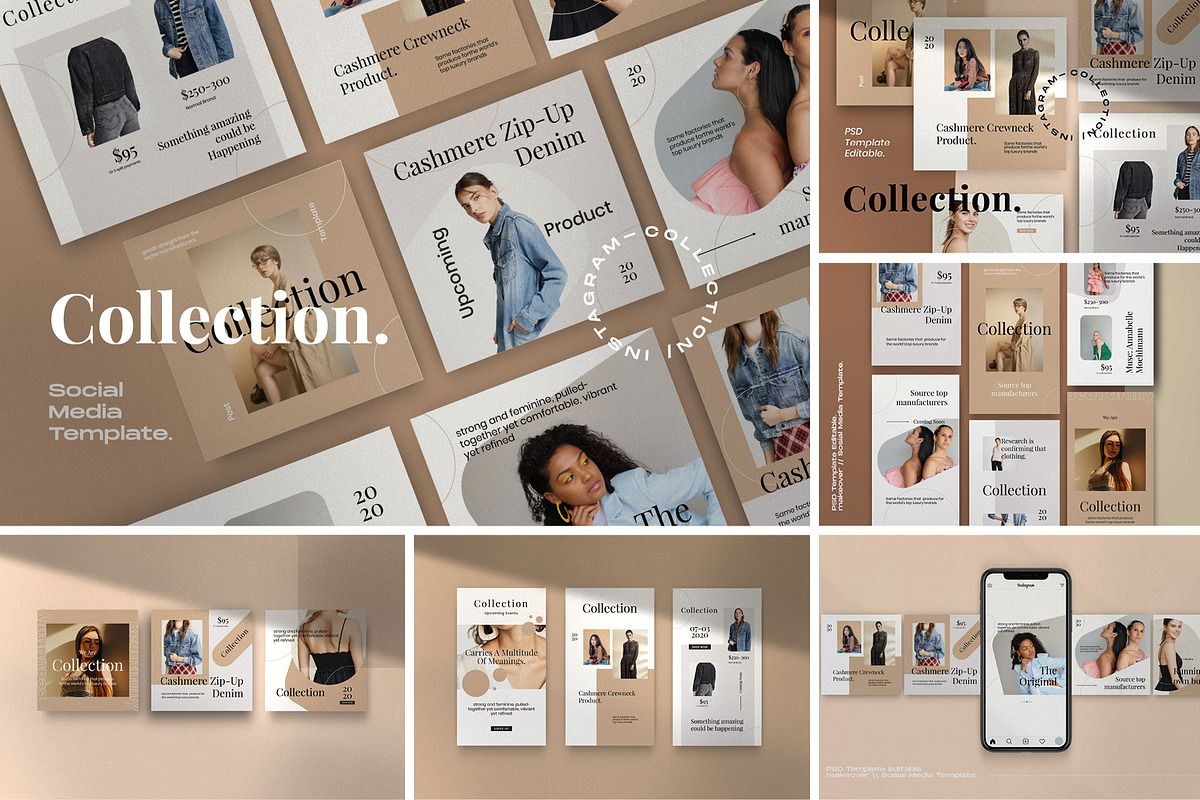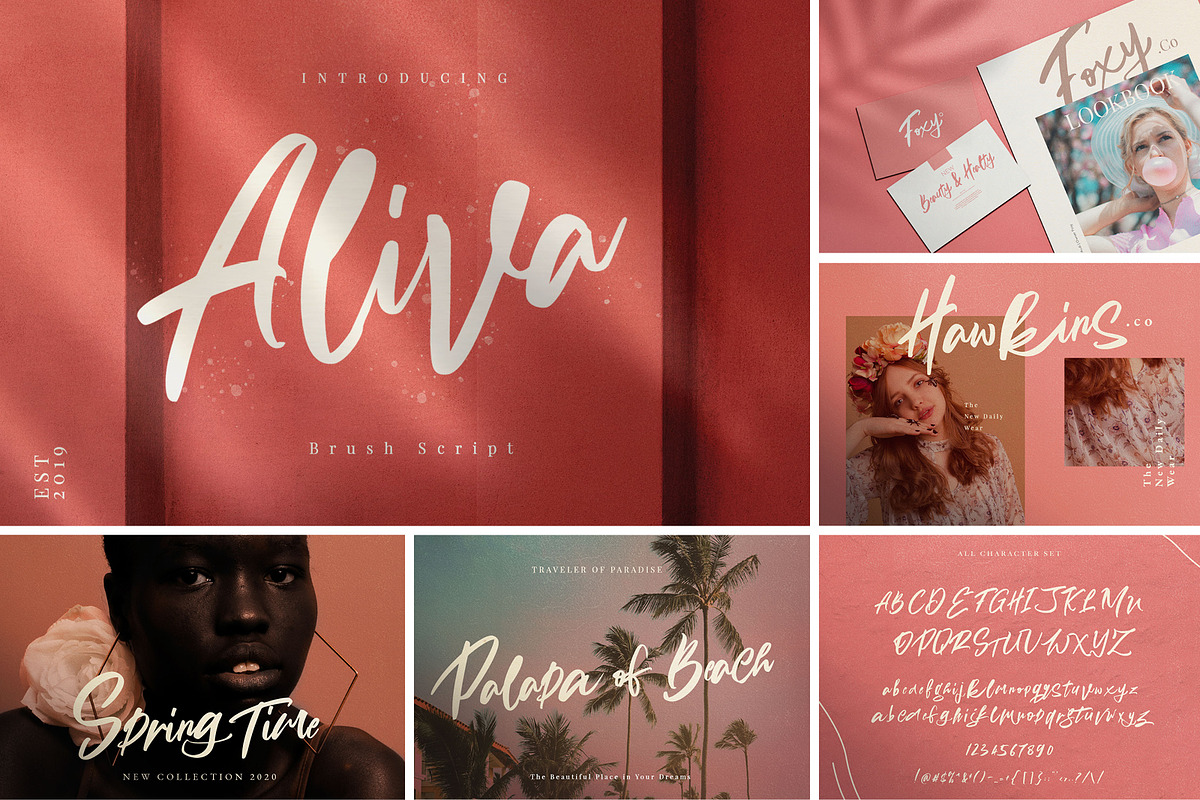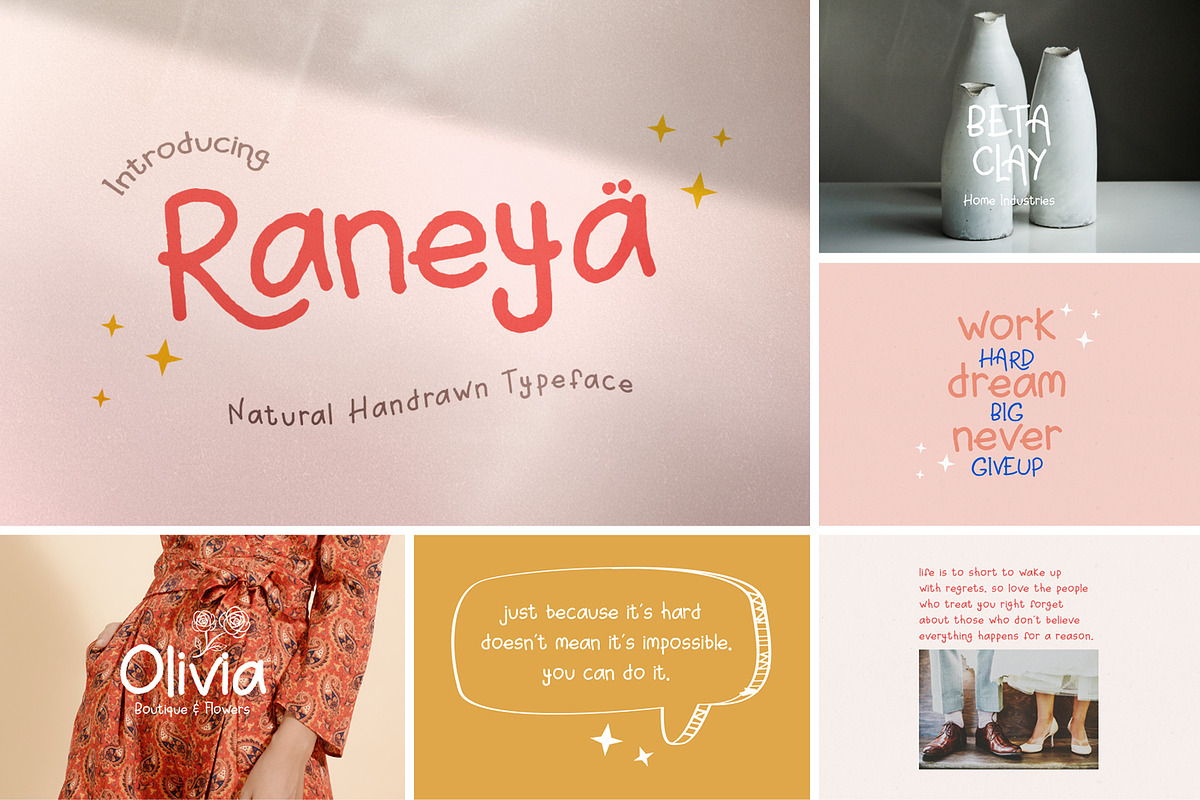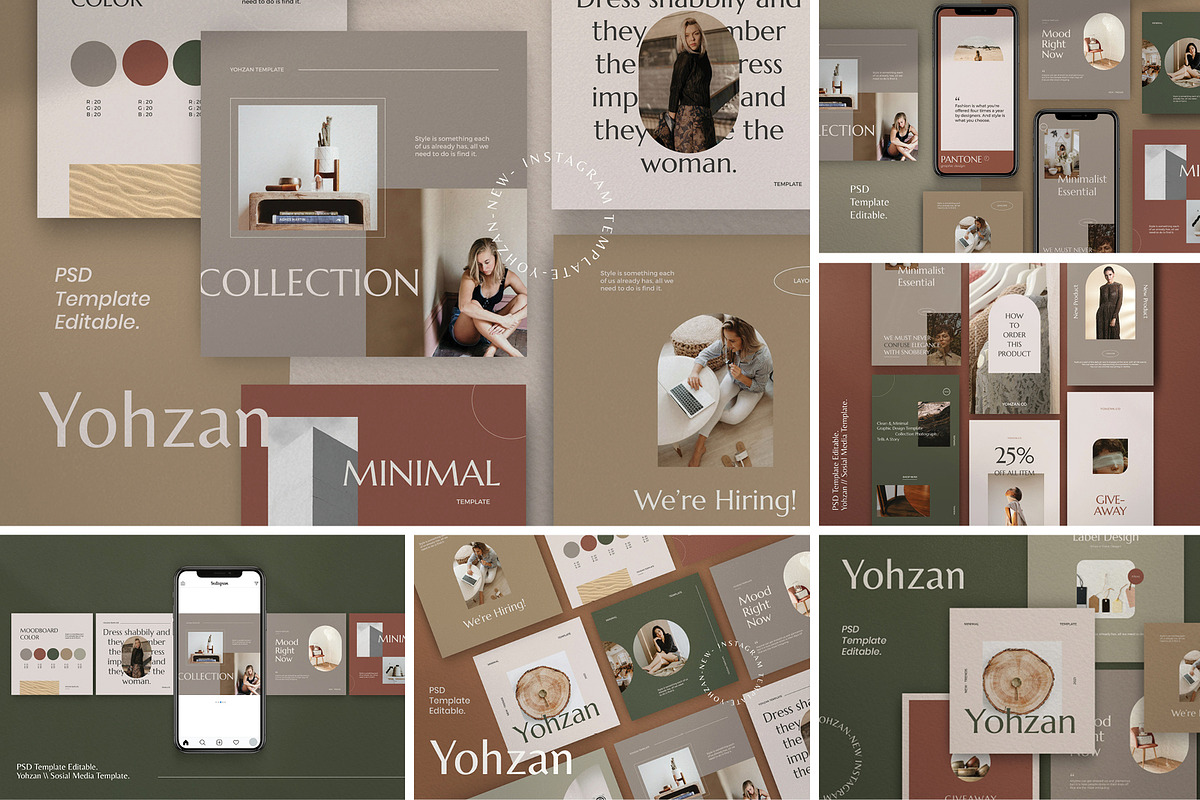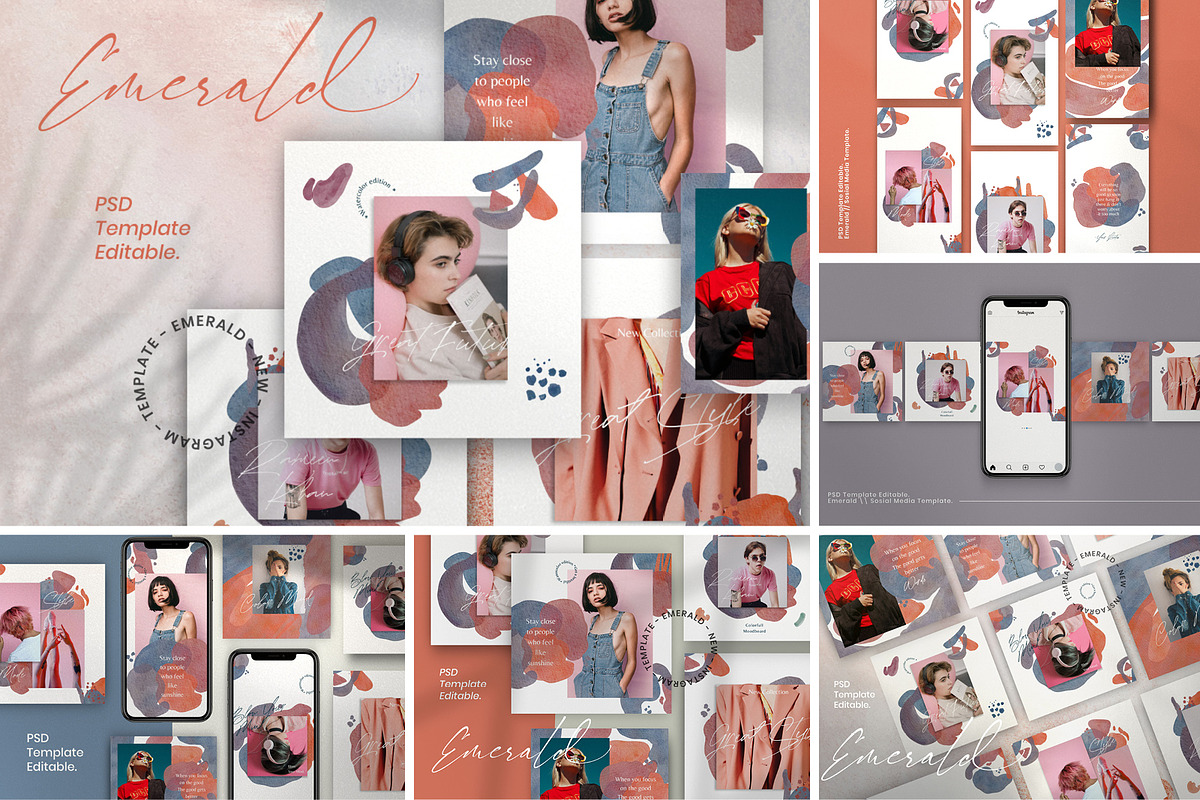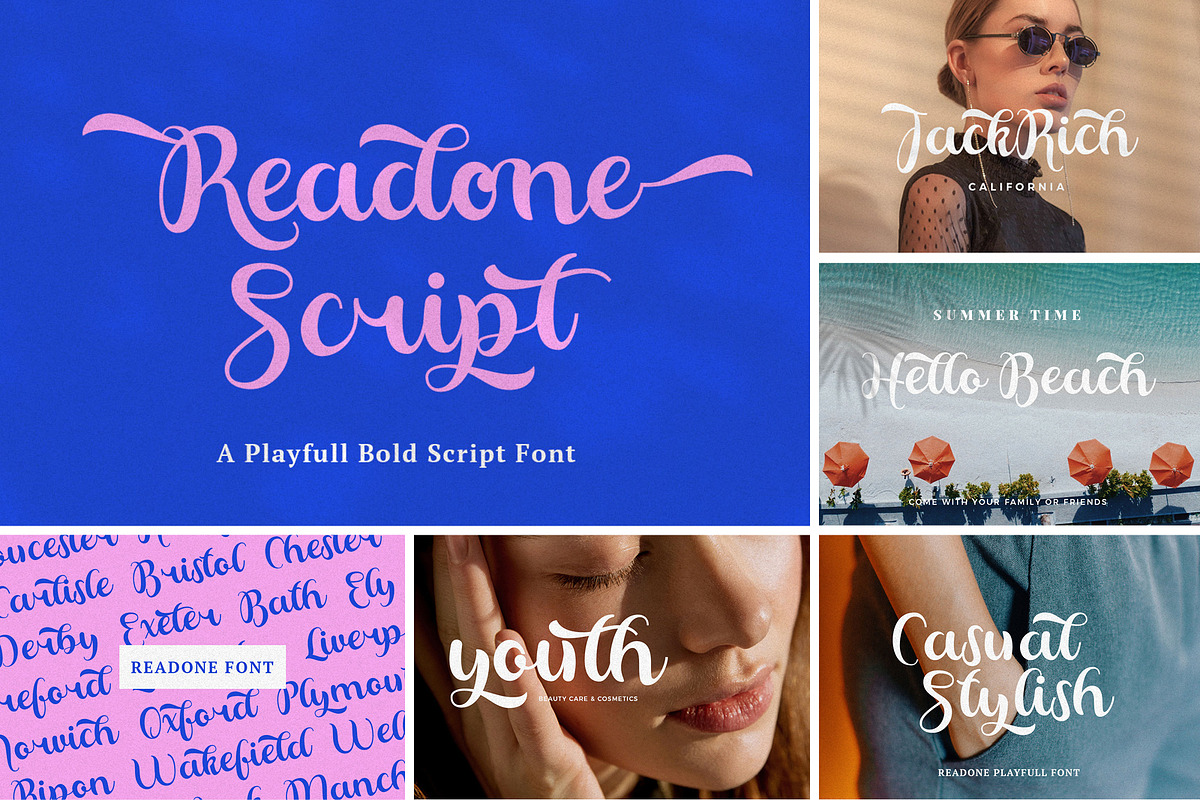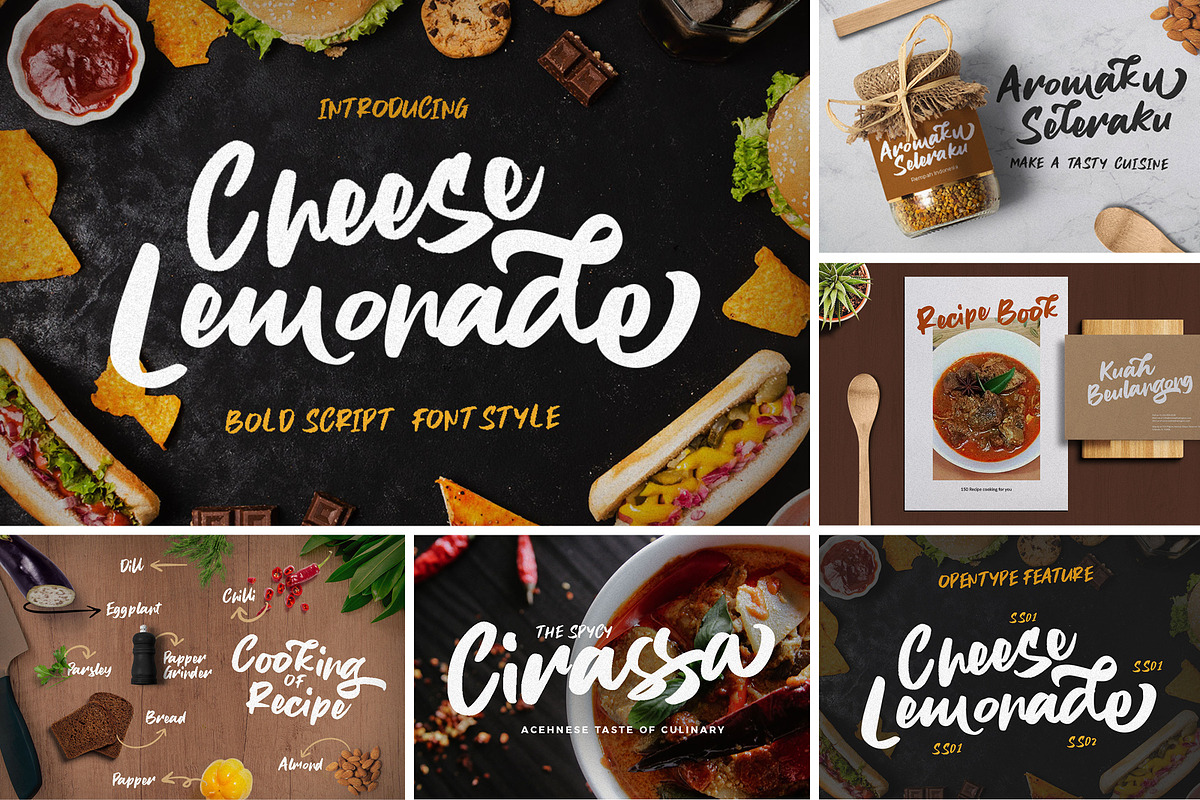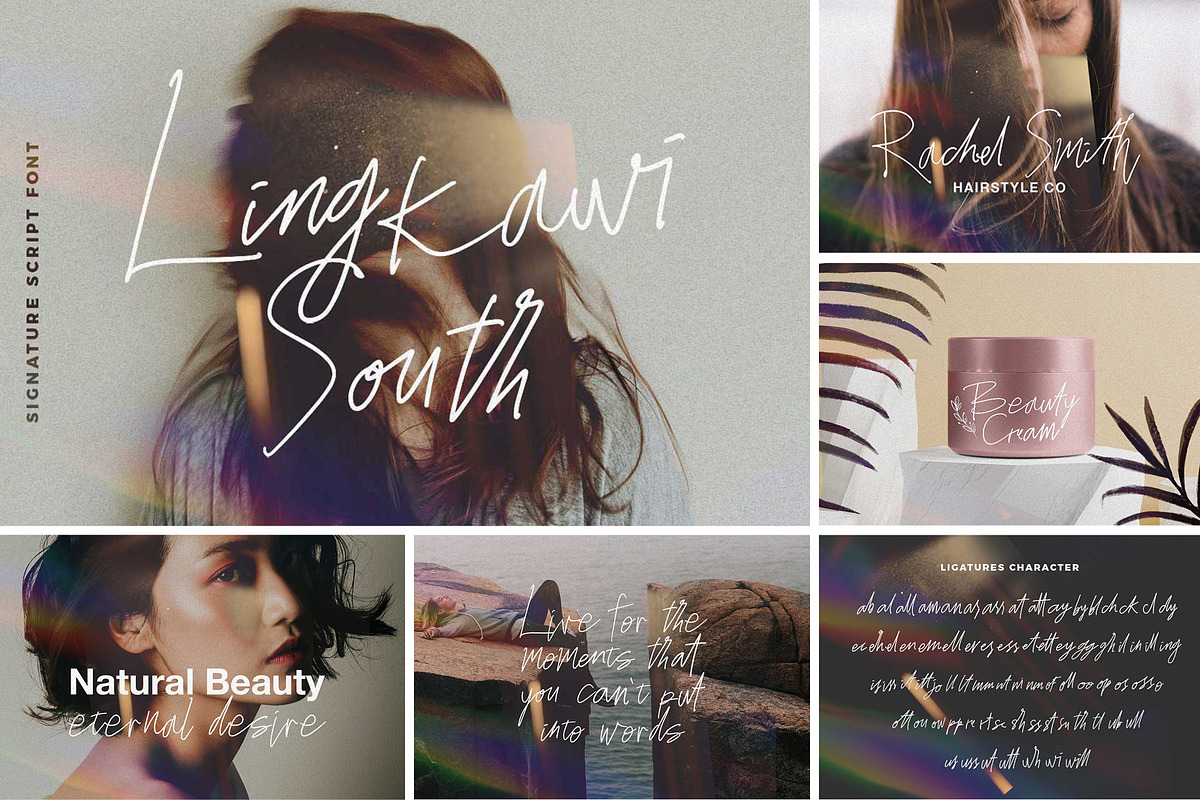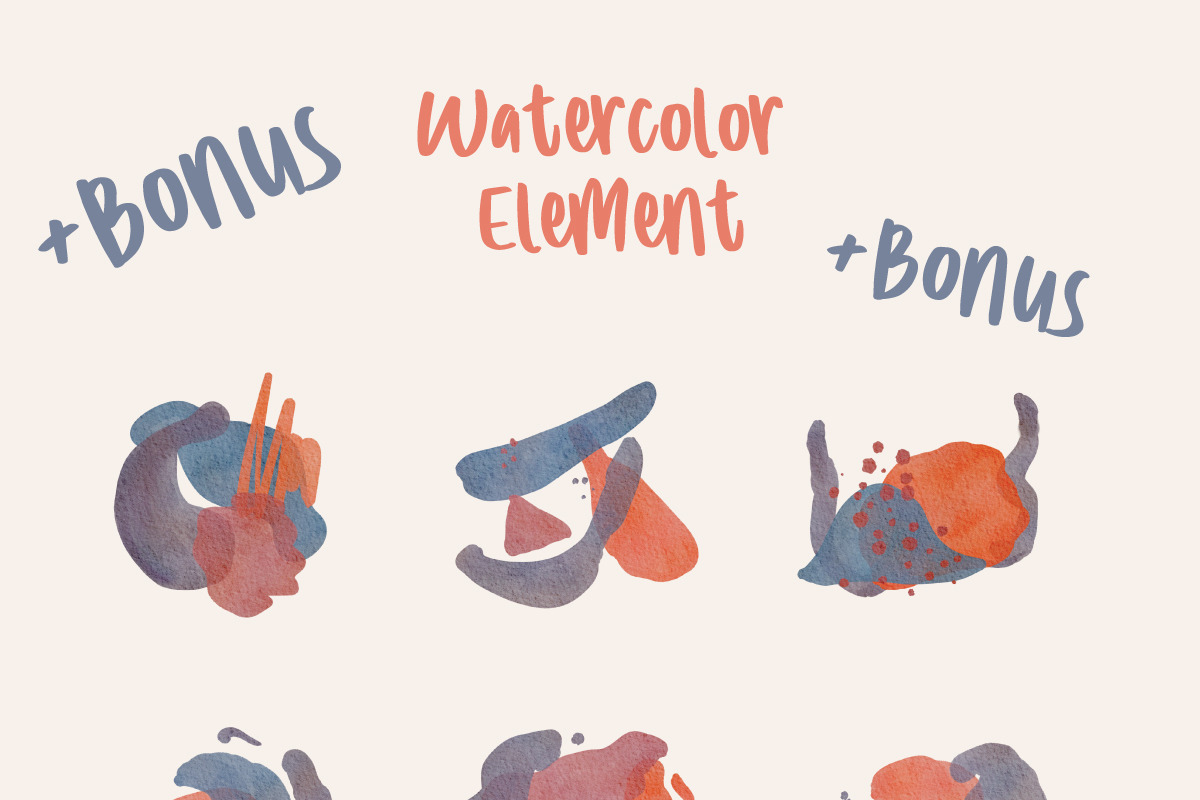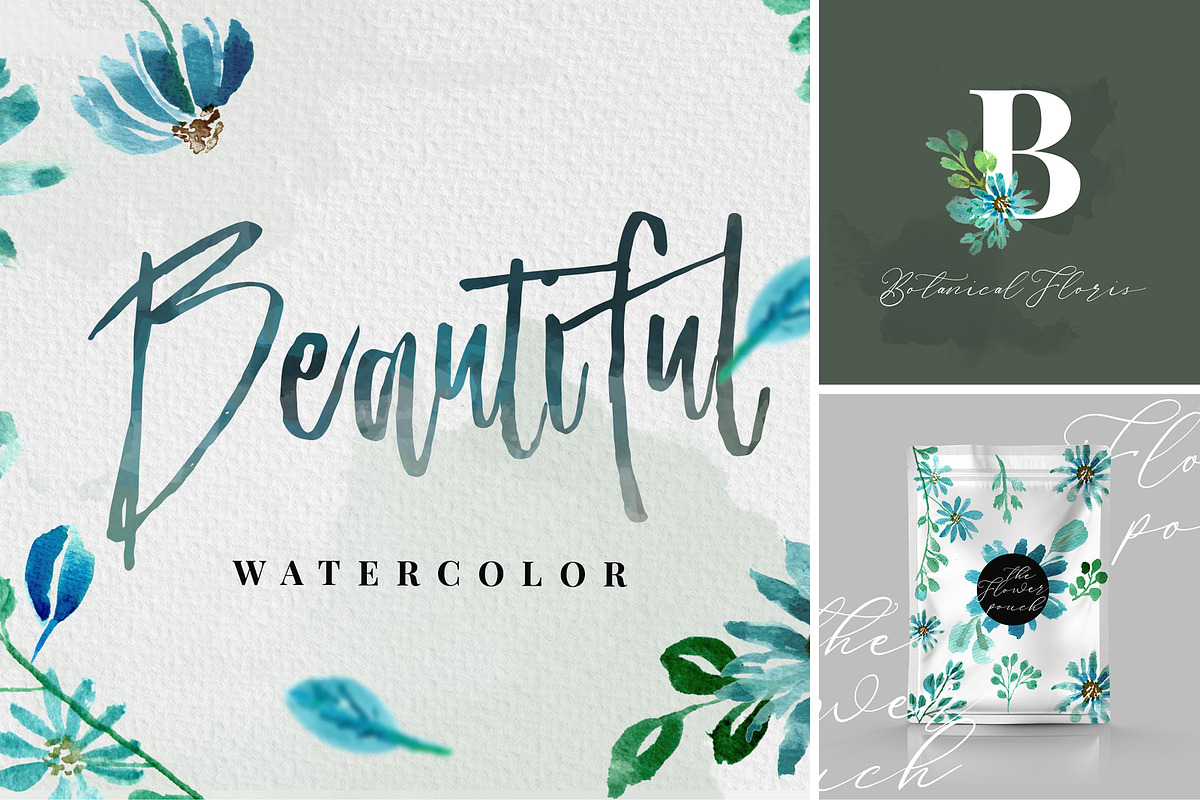
Trendy Font Elegant Bundle + Bonus
This bundle contains 15 high-quality font families. All of our best-selling unique Script Font all with modern elegant, and stylish looks. The bundle also includes Trendy instagram template + bonus vectors and png watercolor 153 aset for your artwork and logos in png, eps, and .ai format.
- Scandinest : https://creativemarket.com/dirtytemp/5438182-Scandinest-Signature-With-Ligature
- Sweet Sugar : https://creativemarket.com/dirtytemp/5418286-Sweet-Sugar-Cute-Font
- Cassavania : https://creativemarket.com/dirtytemp/5390677-Cassavania-Signature-with-Ligature
- Lingkawi South : https://creativemarket.com/dirtytemp/5374833-Lingkawi-South-Signature-Script
- Renaya : https://creativemarket.com/dirtytemp/5365910-Renaya-Cute-Girl-Font
- Ainin Handwrite : https://creativemarket.com/dirtytemp/5311102-Ainin-Natural-Handwrite-Font
- Millered : https://creativemarket.com/dirtytemp/5244783-Millered-Beautiful-Font-Script
- Filladelphia : https://creativemarket.com/dirtytemp/5237699-Filladelphia-Beautiful-Script
- Cheese Lemonade : https://creativemarket.com/dirtytemp/4968560-Cheese-Lemonade-Food-Display-Font
- Readone : https://creativemarket.com/dirtytemp/4895589-Readone-Playfull-Bold-Script
- Hamira : https://creativemarket.com/dirtytemp/4699235-Hamira-Signature-Brush-Font
- Adolle Bright : https://creativemarket.com/dirtytemp/4478763-Adolle-Bright-Modern-Calligraphy
- Boutilafea : https://creativemarket.com/dirtytemp/4417762-Boutilafea-Dancing-Script
- Aliva : https://creativemarket.com/dirtytemp/4258225-Aliva-Brush-Script
- Baby Boomer : https://creativemarket.com/dirtytemp/4085252-Baby-Boomer